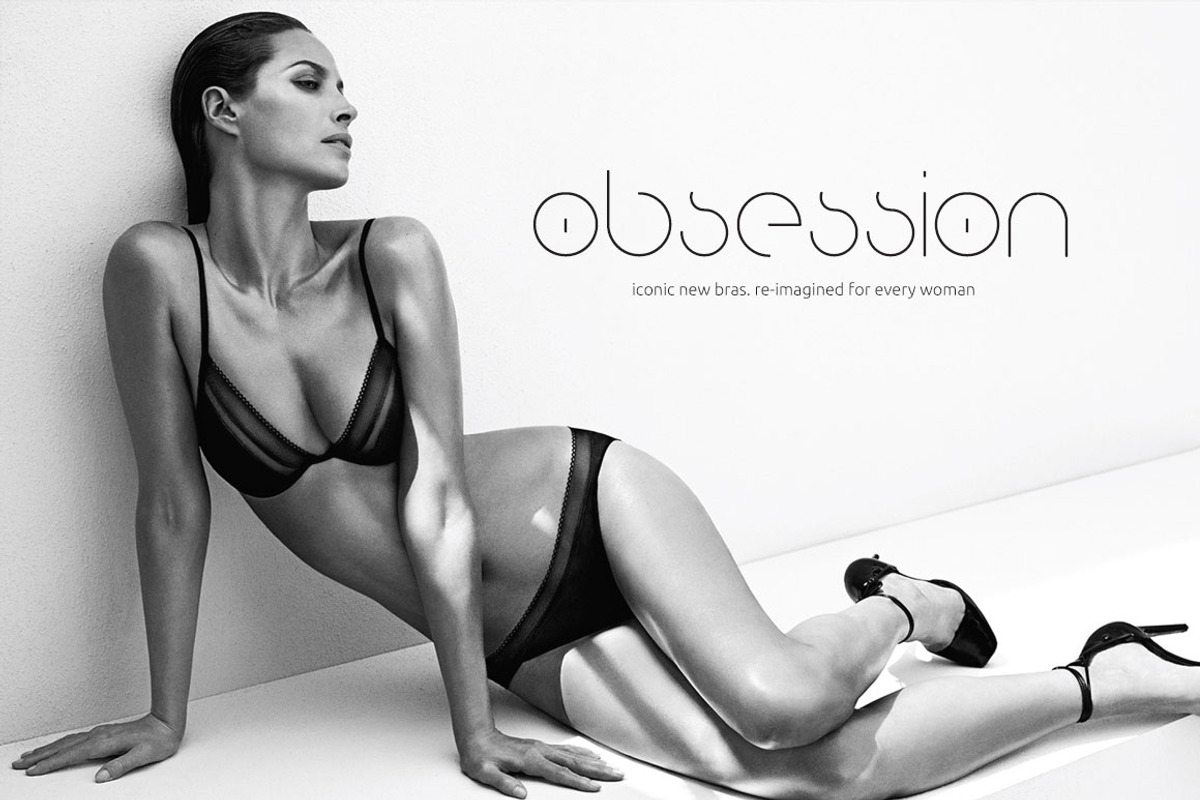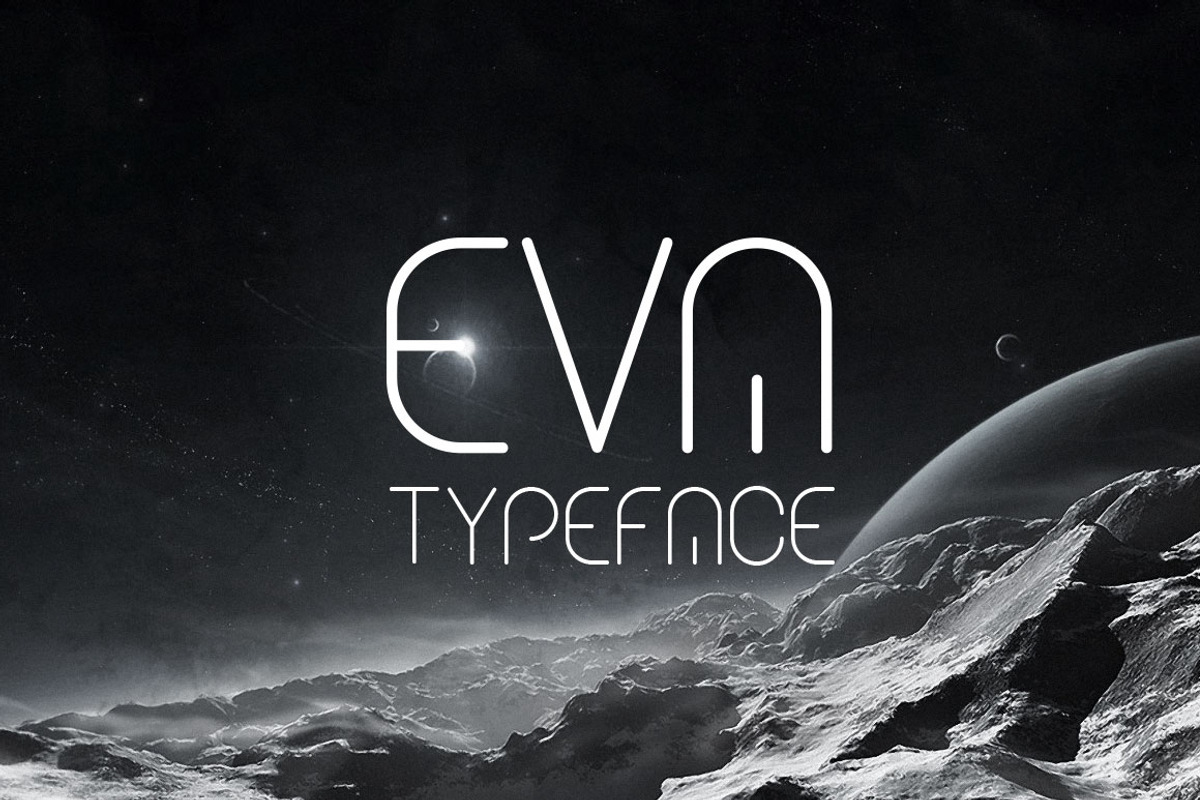
Eva Typeface Sci-fi Font
Eva Typeface Sci-fi Font by DesignSomething is a font selected for branding, posters, packaging, typography.
- Contain 3 thicknesses: light, regular and bold and have multilingual support.
- Eva Light
- Eva Regular
- Eva Bold
Eva Typeface Sci-fi Font by DesignSomething fits naturally into Branding, posters, packaging, typography.